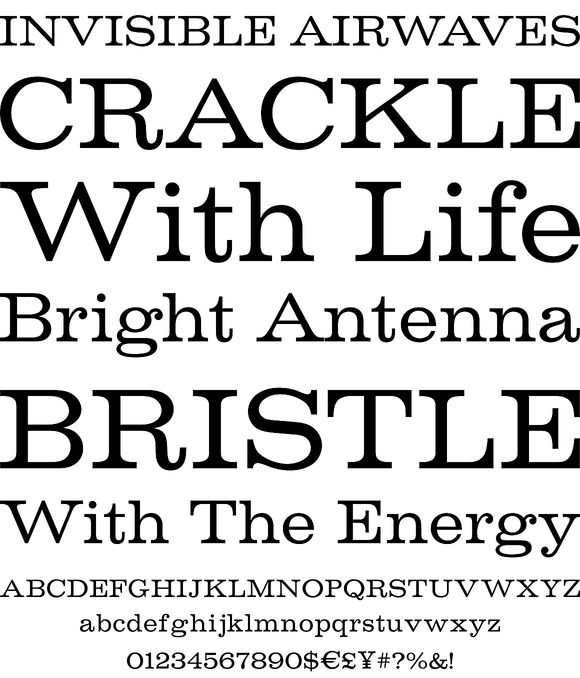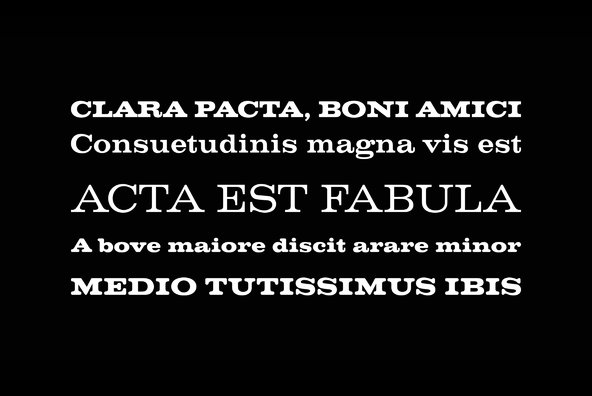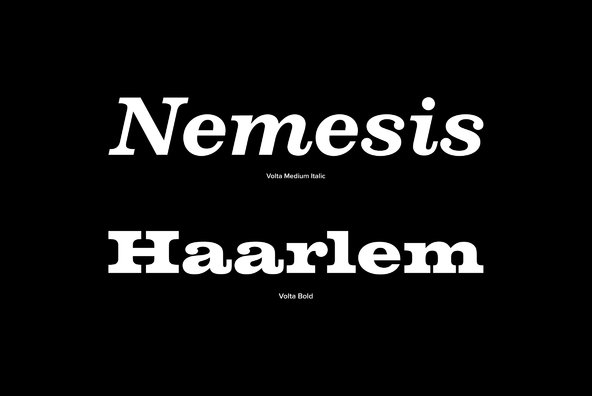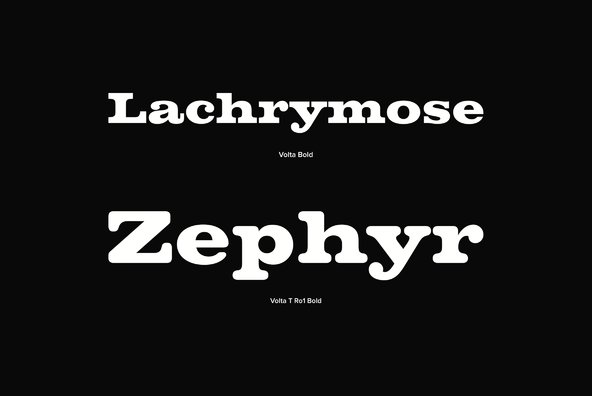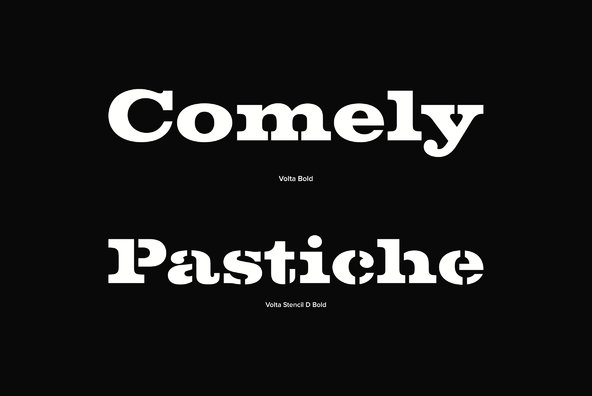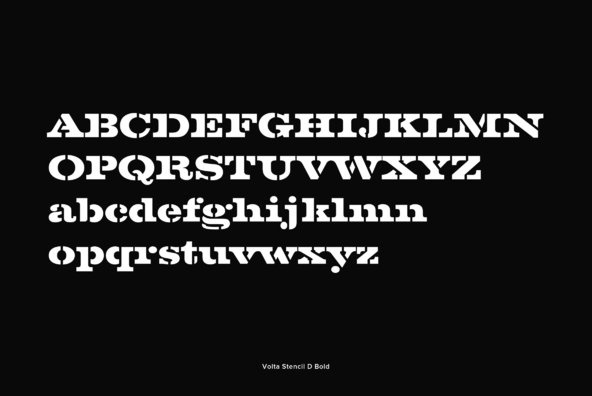
Volta Font
Designed by URW Studio, (Dr. Konrad F. Bauer, Walter Baum), Volta is a heavy slab-serif design released in 1993. Volta contains six unique styles, including a very interesting stencil option.